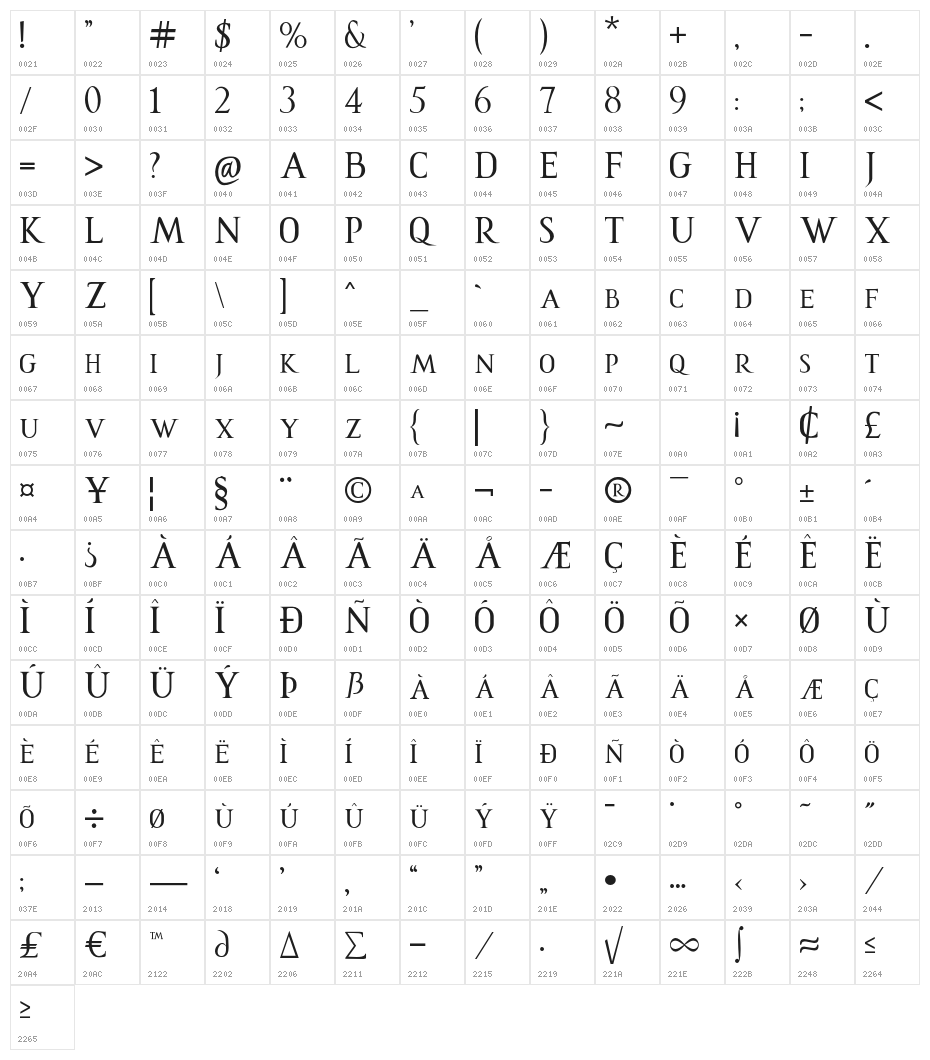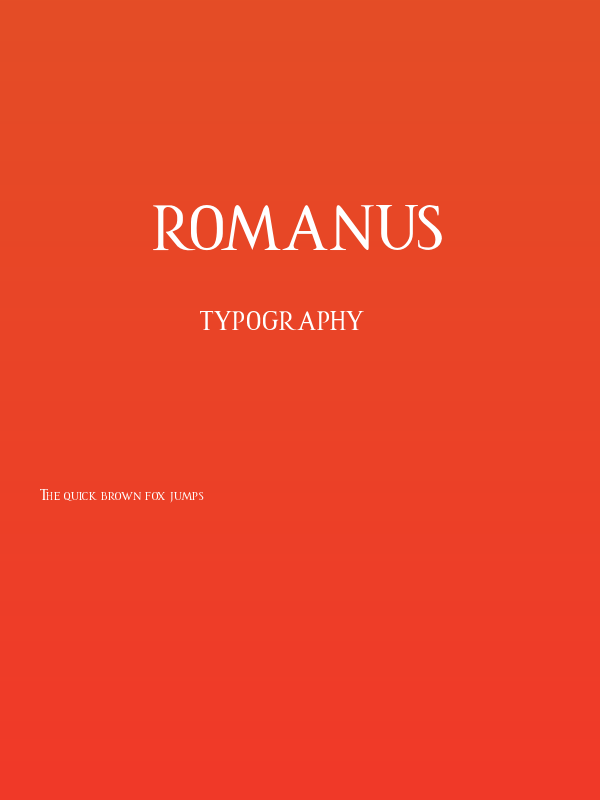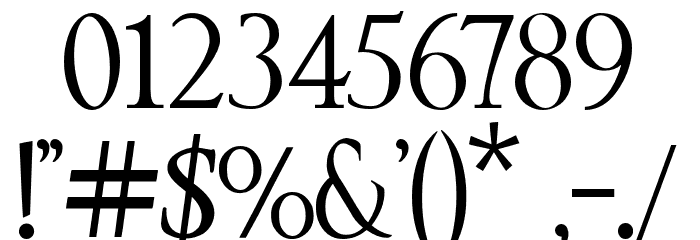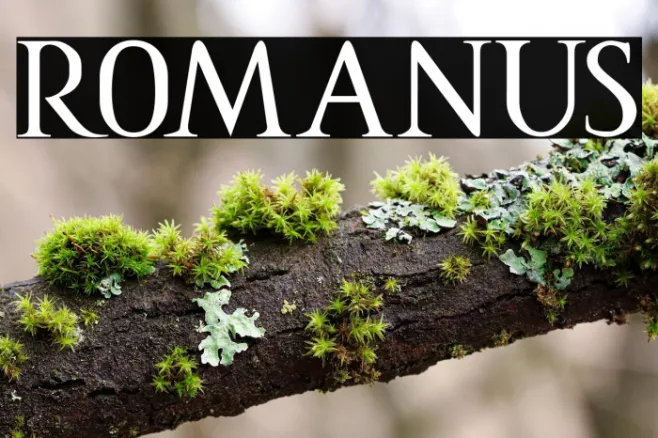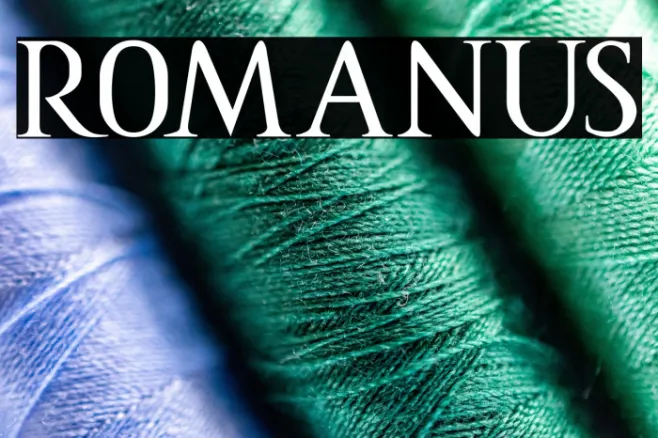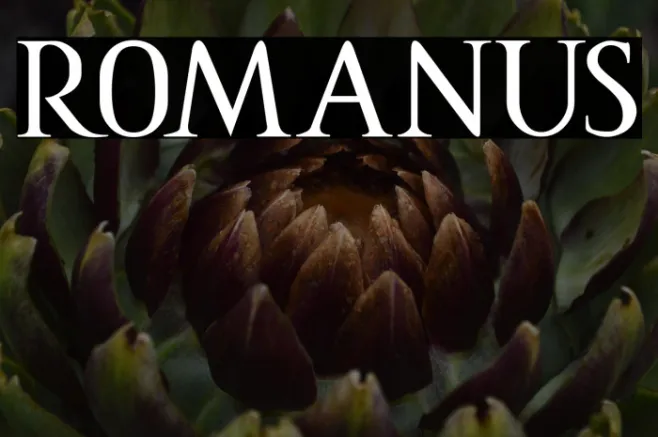
ROMANUS Font
ROMANUS Description
This font exudes a classic and timeless elegance, characterized by its sharp serifs and balanced proportions. The uppercase letters are bold and commanding, with a slight tapering that adds a touch of sophistication. The lowercase letters maintain a consistent style, offering a harmonious blend with the uppercase. The numerals are clear and distinct, ensuring readability. Special characters are well-integrated, maintaining the overall aesthetic. This font is ideal for projects that require a traditional yet impactful appearance.
| Proposed Projects | Perfect for book covers, formal invitations, branding, and editorial design. |